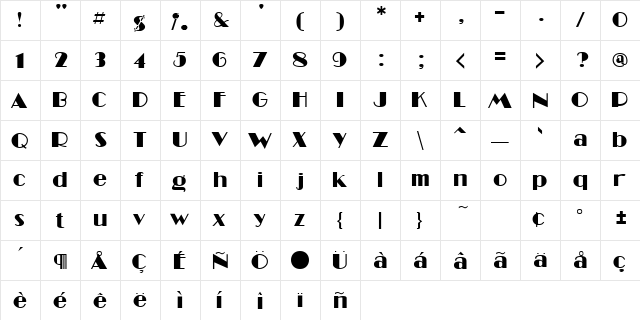
MiamiNig Regular
Design Context for MiamiNig Typeface
MiamiNig is a composed and adaptable typeface that performs quietly and consistently across a wide range of design contexts.